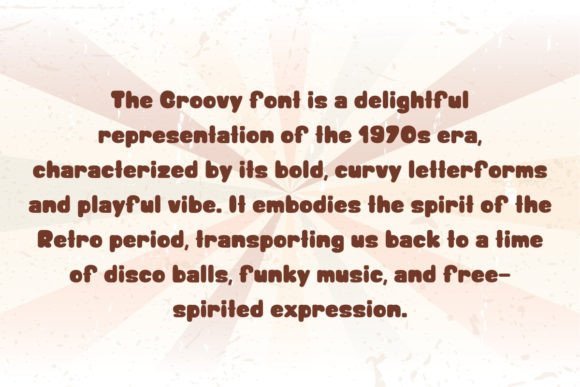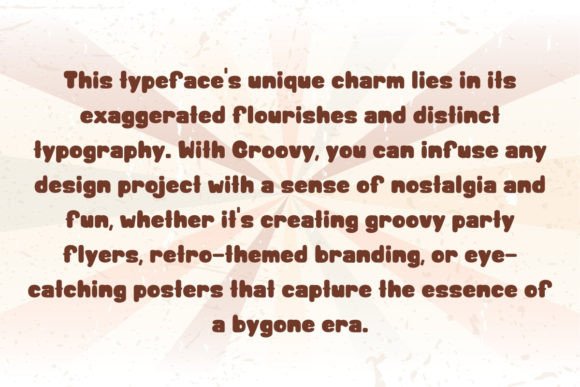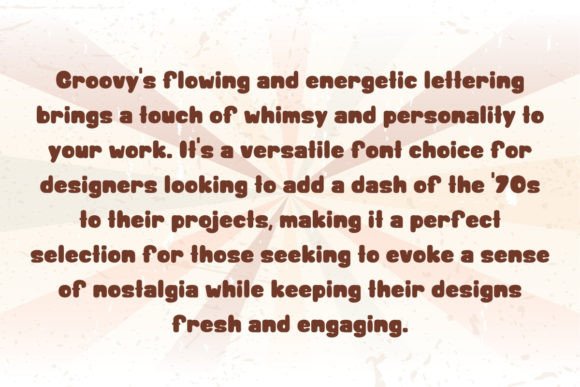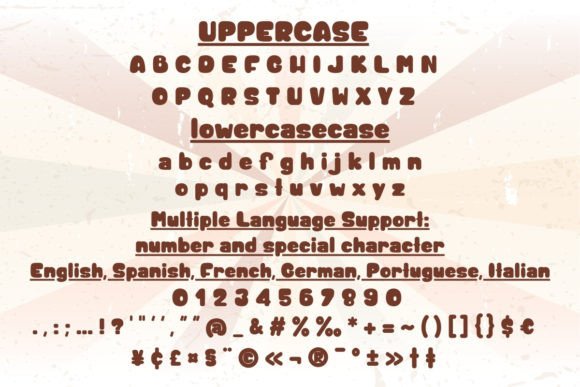
Introduction to Magic Groovy Era Font
Have you ever stumbled upon an old record, flipped it over, and been instantly transported to a bygone era of disco balls, bell-bottom jeans, and groovy vibes? That’s exactly what happens when you work with the Magic Groovy Era Font – a design resource that embodies the spirit of the 1970s.
For designers, finding the right font can be a game-changer. It’s the difference between a design that looks dated and one that’s timeless. The Magic Groovy Era Font is more than just a typeface – it’s a key to unlocking a world of creativity and self-expression. Whether you’re working on a vintage-inspired poster, a disco-themed party invitation, or a fun 70s-inspired branding campaign, this font is the perfect addition to your creative project.
Key Features of Magic Groovy Era Font
- Unique Blend of Retro and Modern Styles: The Magic Groovy Era Font combines the charm of vintage fonts with a touch of modern flair, making it an ideal design resource for creative projects.
- High-Quality Design: This font is designed with precision and care, ensuring that it meets the highest standards of quality and can be used in a variety of creative projects.
- Transparent Background: The Magic Groovy Era Font features a transparent background, allowing for easy layering and customization in design applications.
- High Resolution: This font is designed at a high resolution of 300 DPI, making it suitable for use in a variety of creative projects, from print design to digital applications.
- Perfect for Creative Projects: The Magic Groovy Era Font is ideal for use in creative projects, including logos, branding materials, and advertising campaigns.
Honest Review: Magic Groovy Era Font
As a designer, I’m always on the lookout for high-quality design resources to elevate my creative projects. The Magic Groovy Era Font caught my eye with its retro vibe and free download option.
What works well about this font is its unique blend of modern and vintage elements. The curves and lines are well-executed, making it perfect for projects that require a touch of nostalgia. I also appreciate the transparent background option, which allows for seamless integration with other design elements.
Here are some of the key features I like about Magic Groovy Era Font:
- Unique retro aesthetic
- Limited font sizes and styles available
- No bold or italic options
- Not suitable for professional or formal projects
Overall, I’m impressed with the Magic Groovy Era Font‘s potential for creative projects. While it may not be suitable for every design need, it’s a great addition to any design resource library. ⚠️ Just be aware of its limitations. ✨